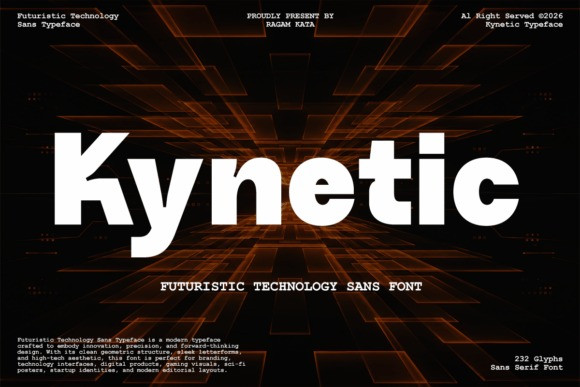
Kynetic Font
Kynetic Font is a bold futuristic technology sans typeface engineered for brands that demand a modern, innovative, and high-impact visual identity. Inspired by advanced technology, digital innovation, and next-generation design trends, this typeface creates an unmistakably futuristic aesthetic suitable for modern creative projects.
Designed for versatility, Kynetic performs exceptionally well in technology branding, startup identities, gaming interfaces, esports graphics, sci-fi posters, digital products, mobile applications, UI/UX presentations, advertising campaigns, and contemporary editorial layouts